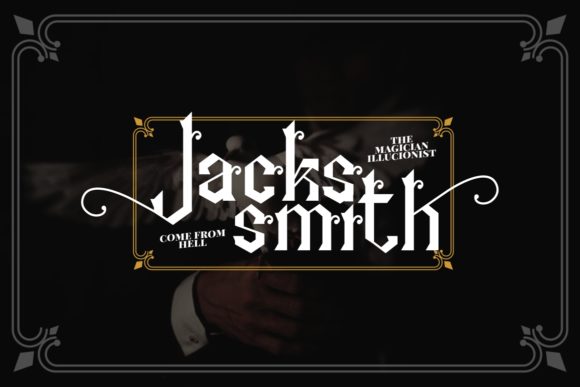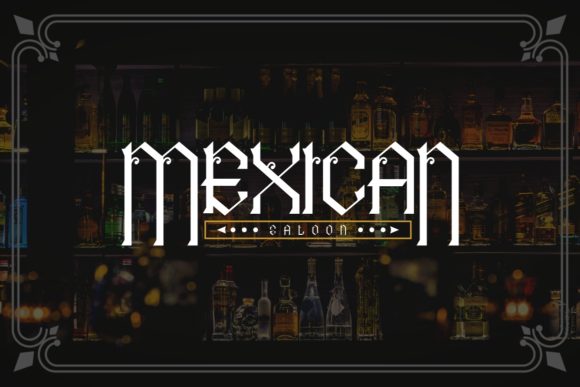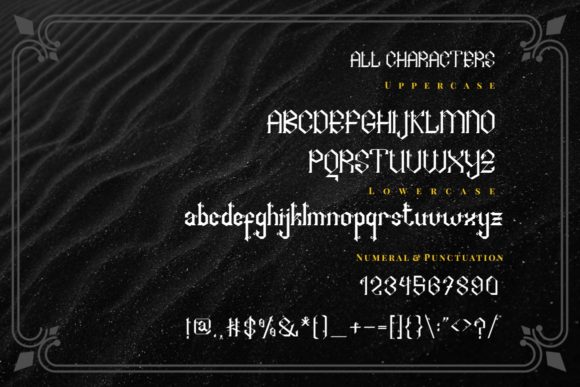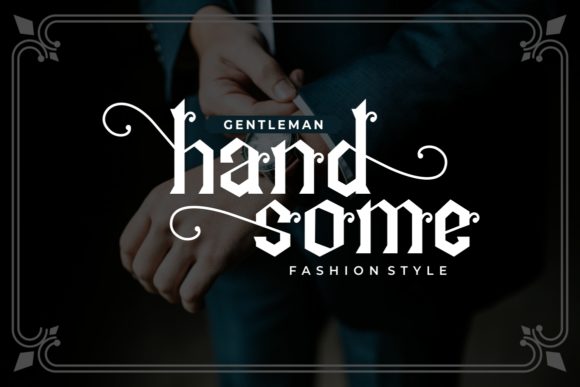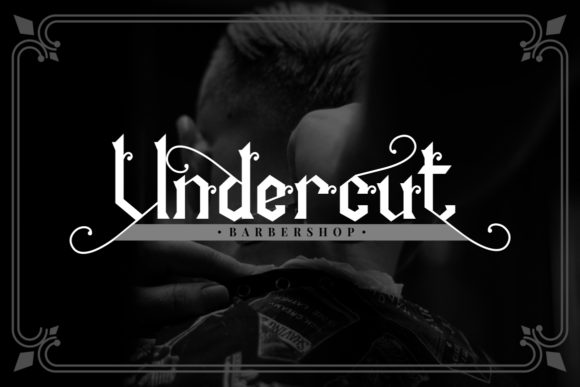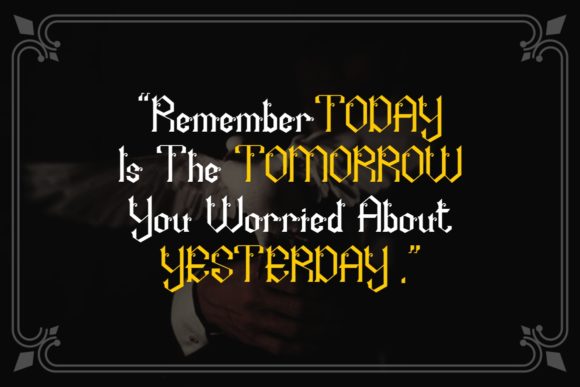
Introducing Arshaka Font: A Futuristic and Nostalgic Blackletter Typeface
In the world of typography, fonts play a crucial role in conveying messages, evoking emotions, and creating visual identities. For designers and crafters, finding the perfect font can be a daunting task, especially when looking for something that stands out from the crowd. This is where Arshaka Font comes in – an experimental blackletter font that seamlessly blends futuristic and nostalgic elements to create a truly unique typeface.
The Inspiration Behind Arshaka
Arshaka Font is the brainchild of a talented type designer who sought to push the boundaries of traditional blackletter typography. By combining the classic, elegant feel of blackletter fonts with modern, futuristic twists, Arshaka was born. The result is a font that feels both nostalgic and cutting-edge, perfect for designers looking to add a touch of sophistication and innovation to their work.
Key Features of Arshaka Font
So, what makes Arshaka Font so special? Here are some of its key features:
- Unique Blend of Influences: Arshaka Font boasts a distinctive blend of traditional blackletter and modern, experimental typography. This fusion creates a captivating visual identity that’s sure to grab attention.
- Futuristic and Nostalgic: Arshaka’s design strikes a perfect balance between futuristic sleekness and nostalgic charm. This makes it an excellent choice for designers seeking to evoke a sense of timelessness in their work.
- Highly Versatile: Whether you’re working on a branding project, packaging design, or digital application, Arshaka Font adapts seamlessly to various contexts and mediums.
- Experimental Edge: As an experimental font, Arshaka offers a fresh take on traditional blackletter typography. Its innovative design elements make it perfect for designers looking to push the boundaries of creativity.
Using Arshaka Font in Your Designs
Arshaka Font is an incredibly versatile typeface that can elevate a wide range of design projects. Here are some ideas to get you started:
- Branding and Logos: Create a lasting impression with Arshaka Font’s bold, eye-catching design. Perfect for logos, business cards, and other brand materials.
- Packaging Design: Add a touch of sophistication and elegance to your packaging designs with Arshaka’s unique blend of classic and modern elements.
- Digital Applications: Use Arshaka Font to create stunning digital experiences, from mobile apps to website headers and social media graphics.
- Print Materials: Arshaka Font shines in print, making it an excellent choice for brochures, posters, flyers, and other marketing materials.
Tips for Pairing Arshaka Font with Other Typefaces
To get the most out of Arshaka Font, consider pairing it with complementary typefaces. Here are some tips:
- Contrast with Sans-Serifs: Pair Arshaka Font with clean, modern sans-serifs to create a striking visual contrast.
- Match with Serif Fonts: Combine Arshaka Font with traditional serif fonts for a sophisticated, elegant look.
- Experiment with Script Fonts: Add a touch of whimsy by pairing Arshaka Font with playful script fonts.
Arshaka Font is an exceptional blackletter typeface that offers a unique blend of futuristic and nostalgic elements. With its experimental edge and versatility, it’s perfect for designers and crafters looking to elevate their work. Whether you’re creating branding materials, packaging designs, or digital applications, Arshaka Font is sure to make your designs stand out. So why settle for ordinary typography when you can make a statement with Arshaka Font?